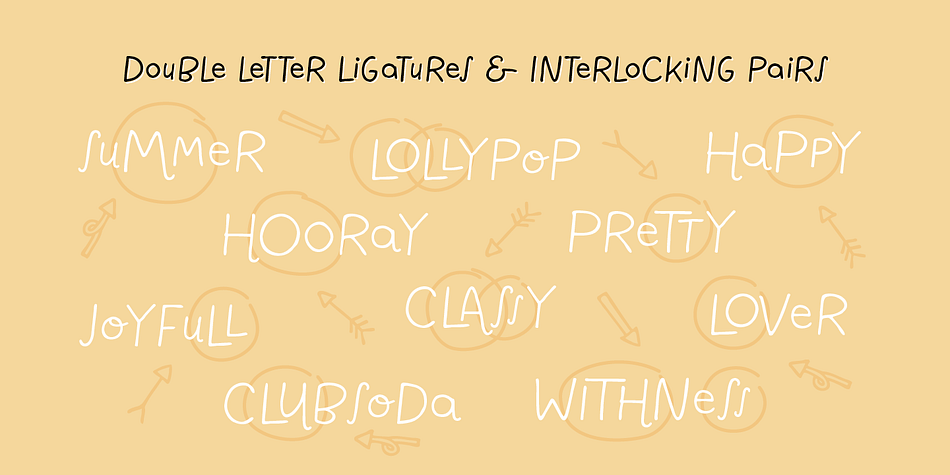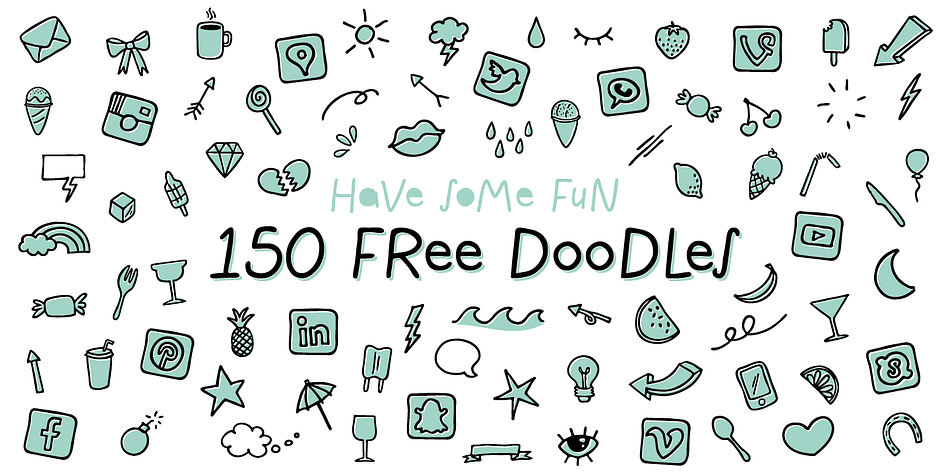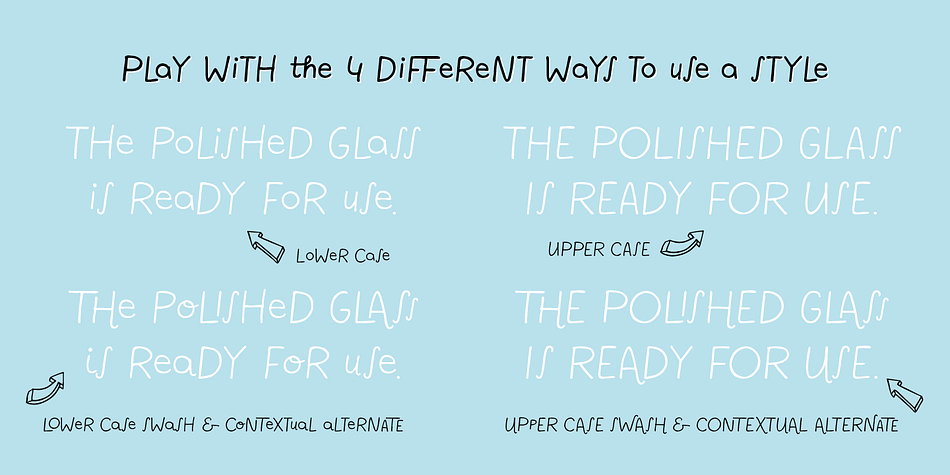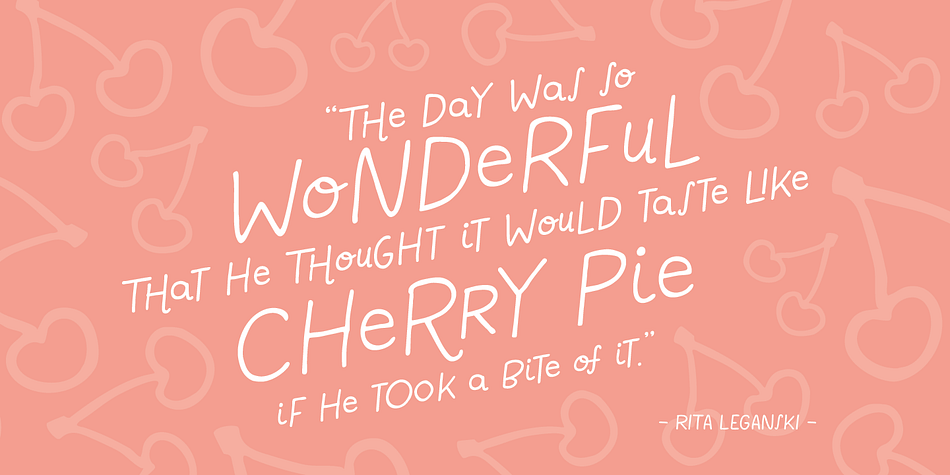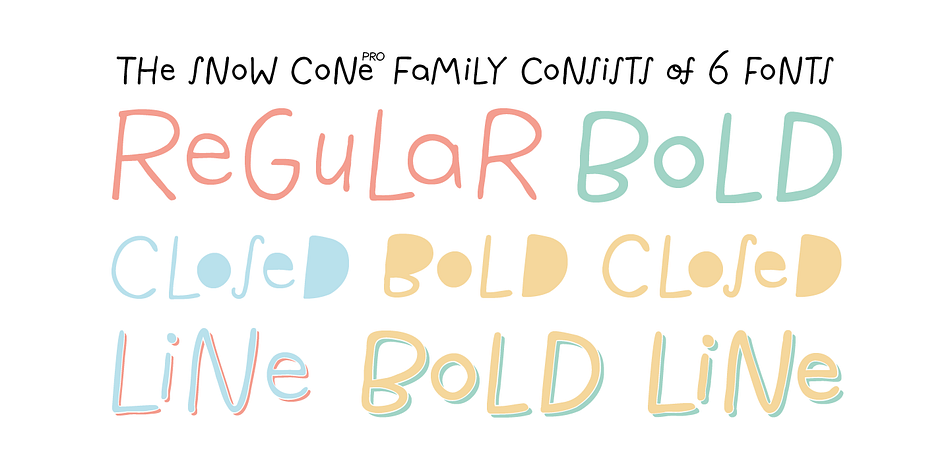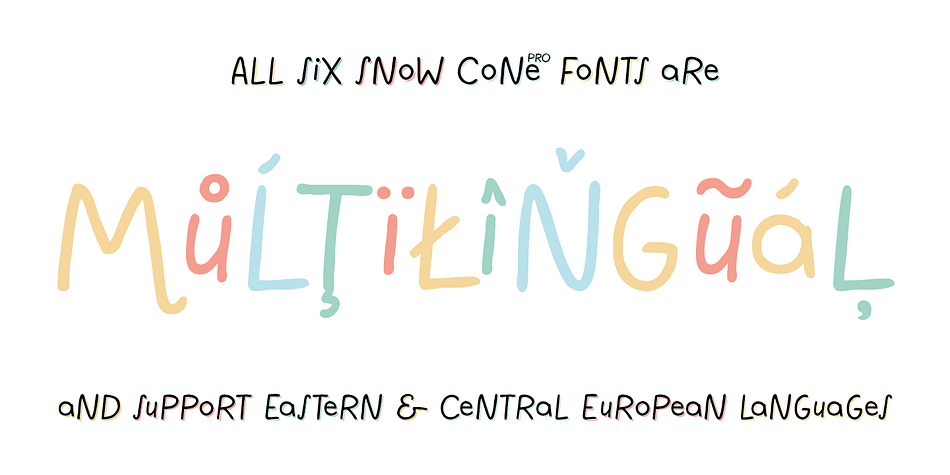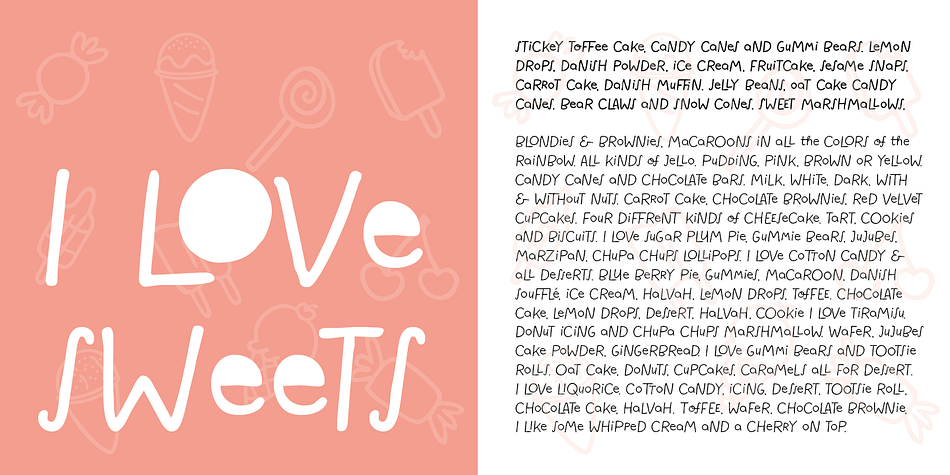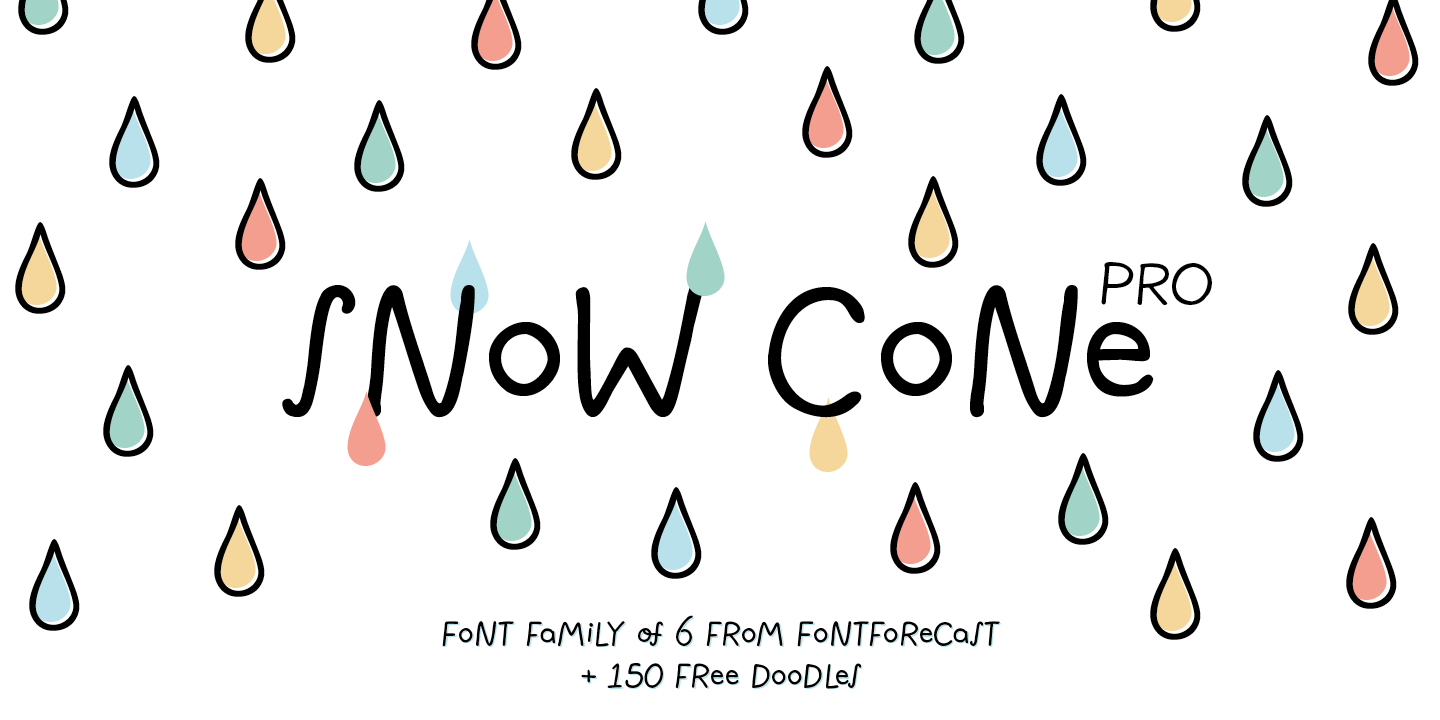
Designed by Marloes Versluys, Snow Cone Pro is a dingbat and hand drawn font family. This typeface has seven styles and was published by Fontforecast.
Snow Cone Pro is a hand drawn font family consisting of 6 playful typefaces.
Snow Cone Pro brings a fresh splash of summer to your designs. You can change the appearance of each font by playing with the open type features, such as interlocking pairs, double letter ligatures, stylistic alternates.
As a bonus you get Snow Cone Doodle for free. 150 little drawings to complement the 6 Snow Cone fonts. So play away and have some fun!